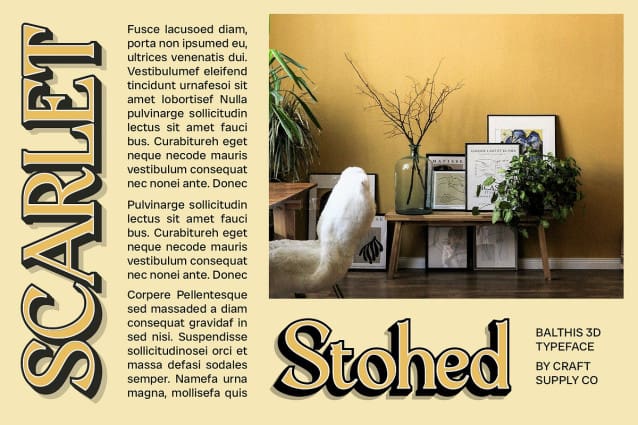
Balthis 3D Font
Balthis 3D combines timeless serif elegance with modern depth through its sophisticated 3D effect. The refined letterforms exhibit a classic charm, while the subtle dimensionality enhances the font’s contemporary appeal, making it a perfect choice for upscale designs.
Refined Letterforms for a Striking Look The font’s carefully crafted serifs and clean lines offer a polished and professional appearance. The 3D effect adds an extra layer of visual interest, creating a striking look that captures attention and conveys luxury and refinement.
Ideal for Upscale Branding and Luxury Publications Balthis 3D is designed to elevate branding, luxury publications, and high-end projects. Its combination of classic elegance and modern dimensionality makes it suitable for use in premium branding materials, elegant editorial layouts, and sophisticated promotional designs.
Sophisticated and Engaging Design With its balance of classic serif design and contemporary 3D depth, Balthis 3D brings a unique, engaging touch to any project. Perfect for designs that require a blend of tradition and modernity, it adds a distinguished flair to upscale and high-impact visuals.